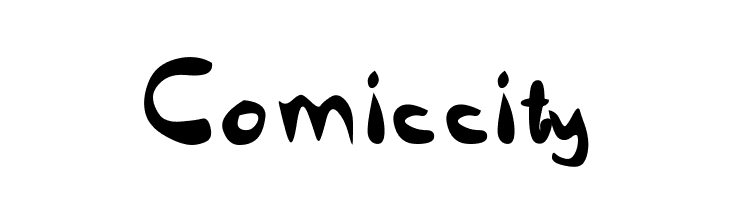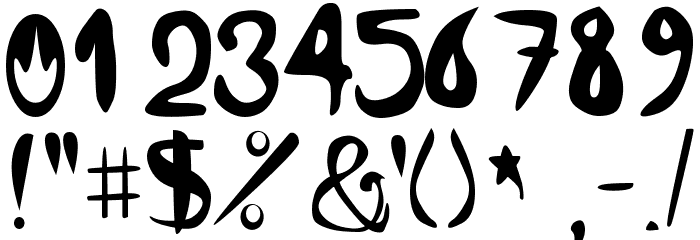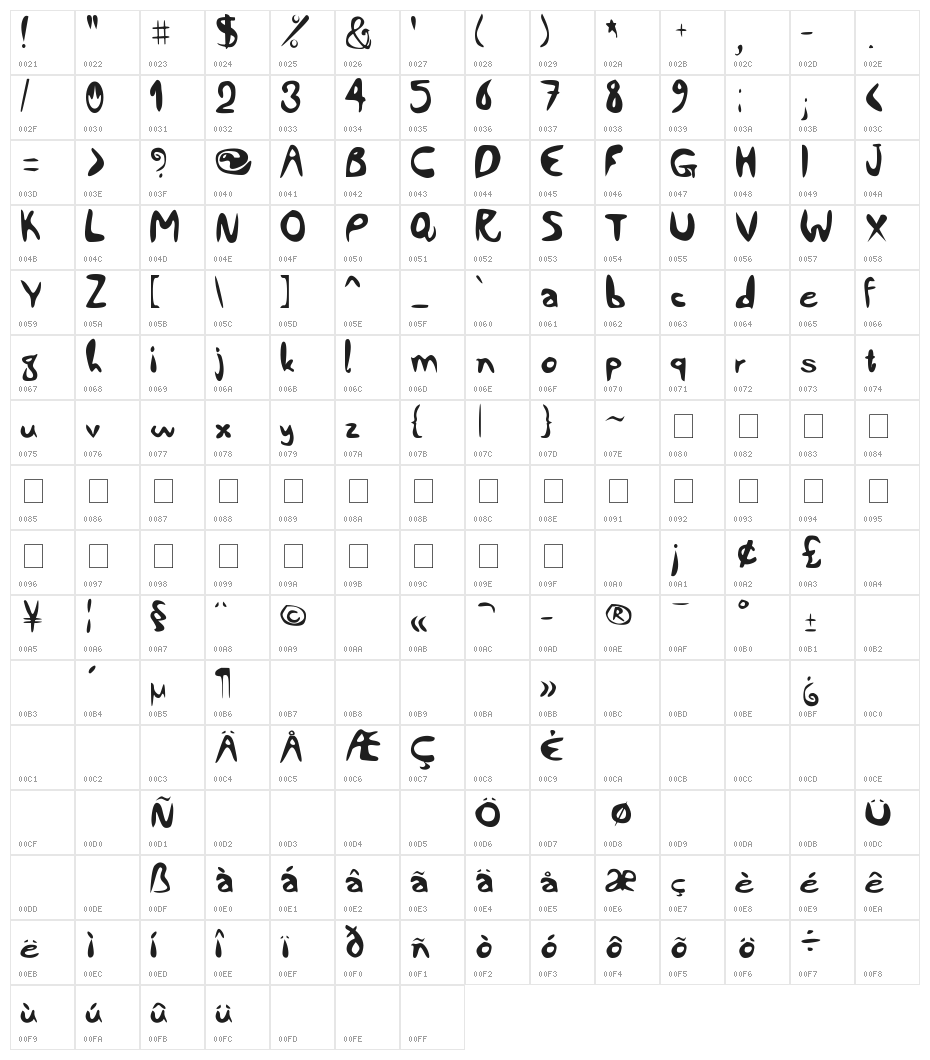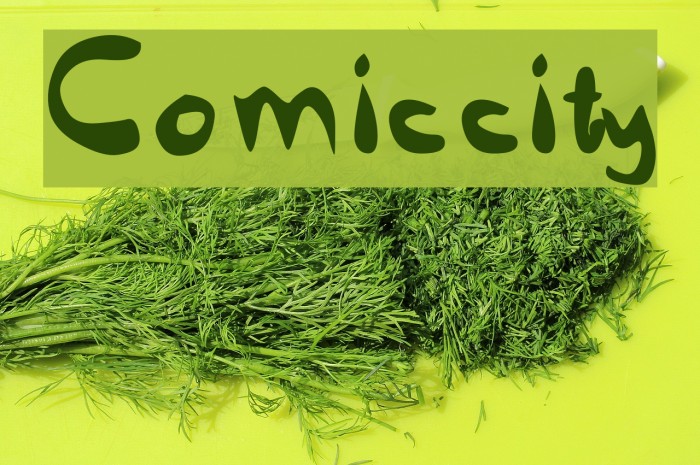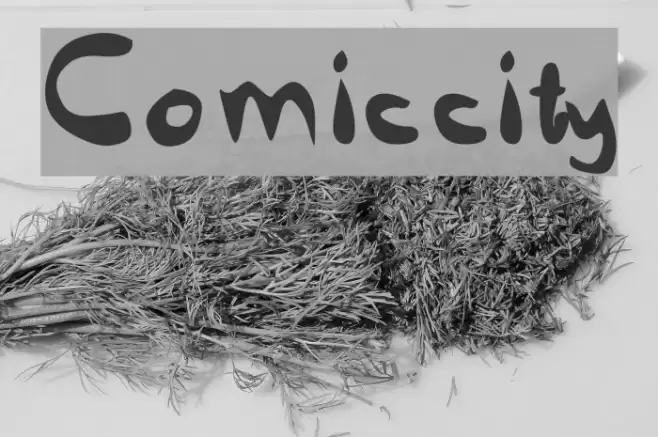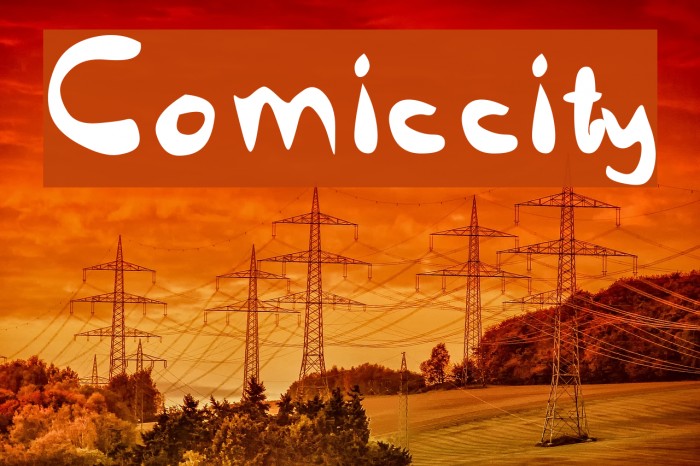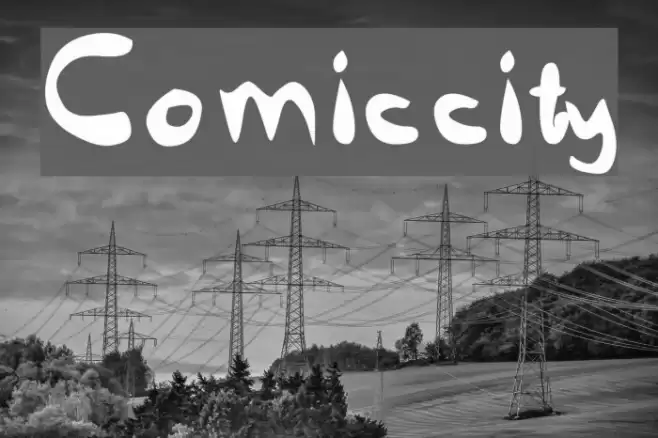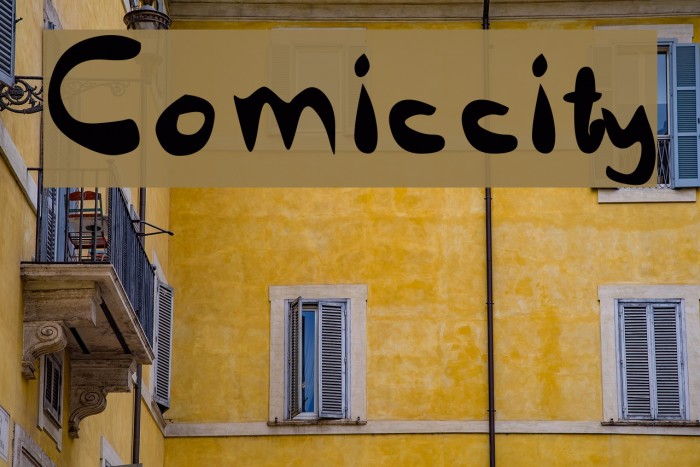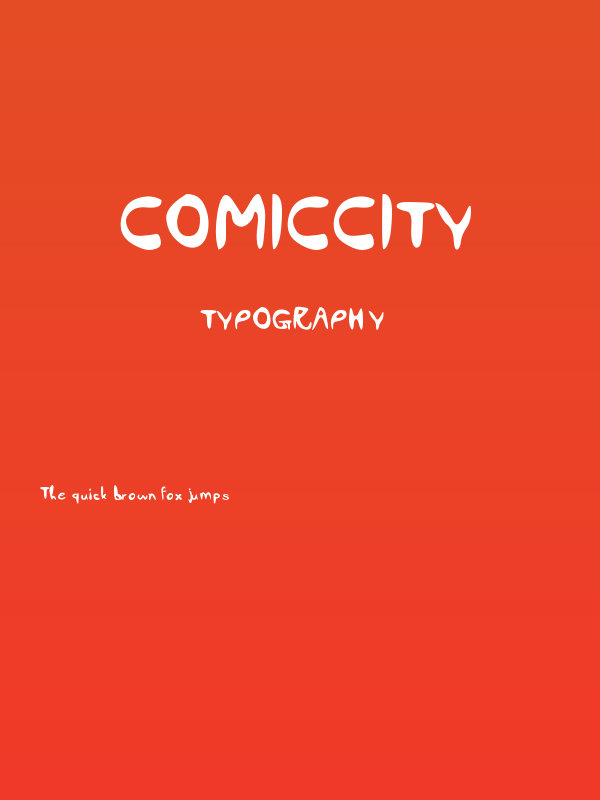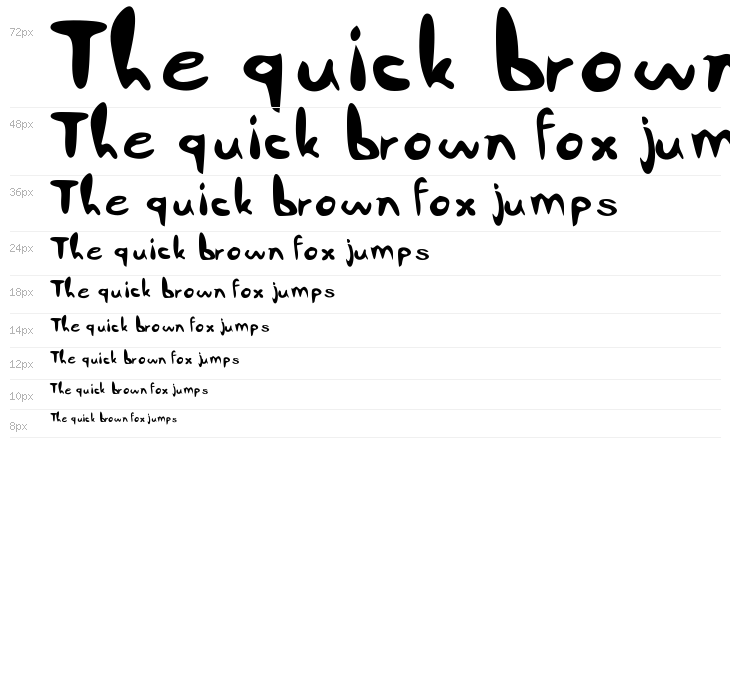
Comiccity Font
Comiccity Description
This playful and energetic font features a whimsical, hand-drawn style that captures a sense of fun and creativity. The letters are bold and slightly irregular, giving them a lively and dynamic appearance. The uppercase and lowercase characters maintain a consistent style, with exaggerated curves and a slightly uneven baseline that adds to the casual, informal feel. The numbers and special characters follow the same playful design, making the font versatile for various creative projects. Its unique style makes it stand out, perfect for capturing attention and conveying a sense of humor and lightheartedness.
| Proposed Projects | Ideal for comic books, children's books, playful branding, and creative posters. |